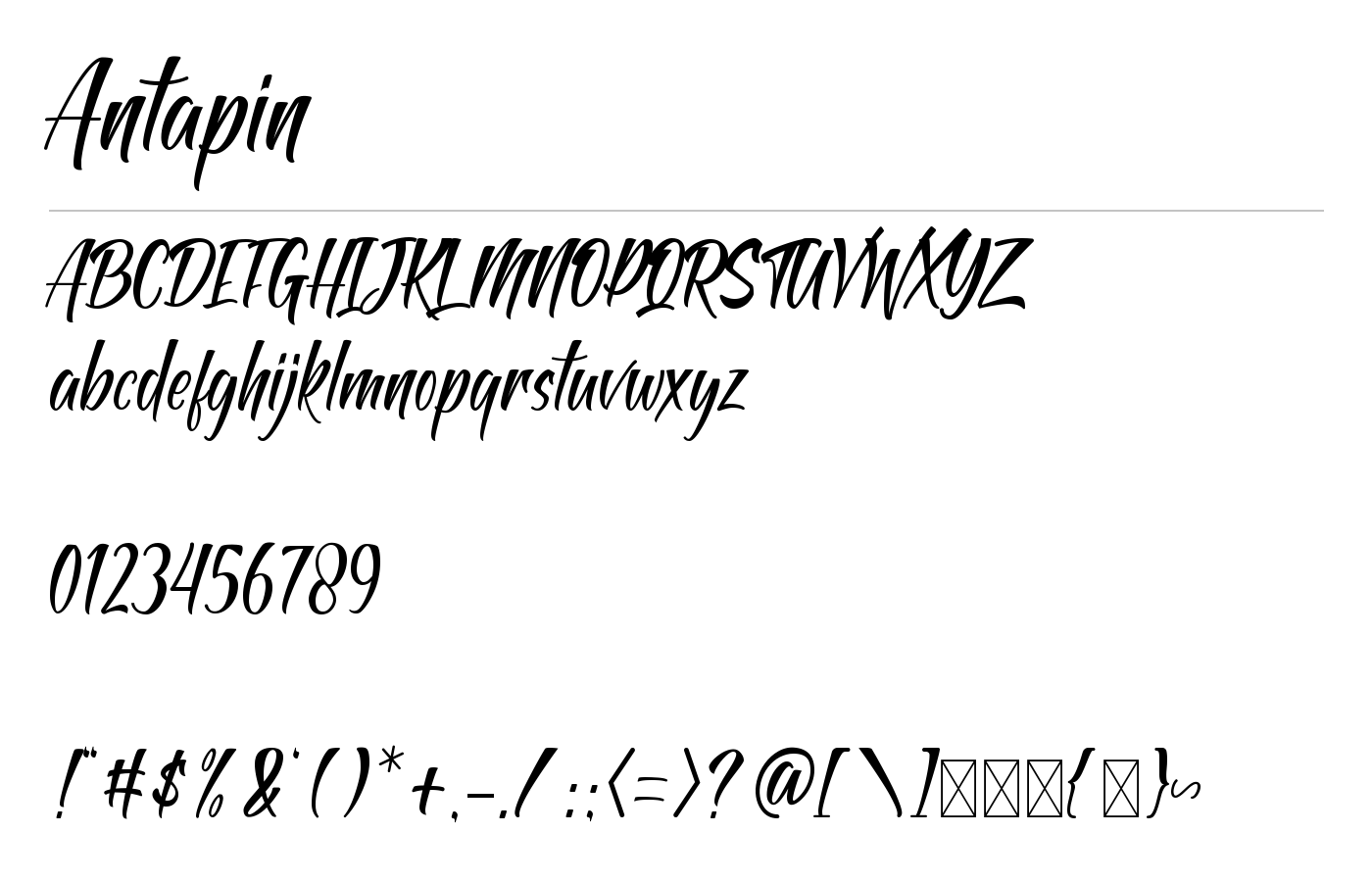
Antapin is a lively and elegant script font with a handwritten feel, characterized by its tall, narrow letterforms and smooth, flowing strokes. Its moderate contrast and slightly slanted style give it a dynamic yet sophisticated personality, making it ideal for creative branding, invitations, and stylish headlines where a personal and refined touch is desired. This font works best in designs that seek to communicate elegance with a modern, artistic flair.
Antapin Font
About Antapin Font
| Font family | Antapin Font |